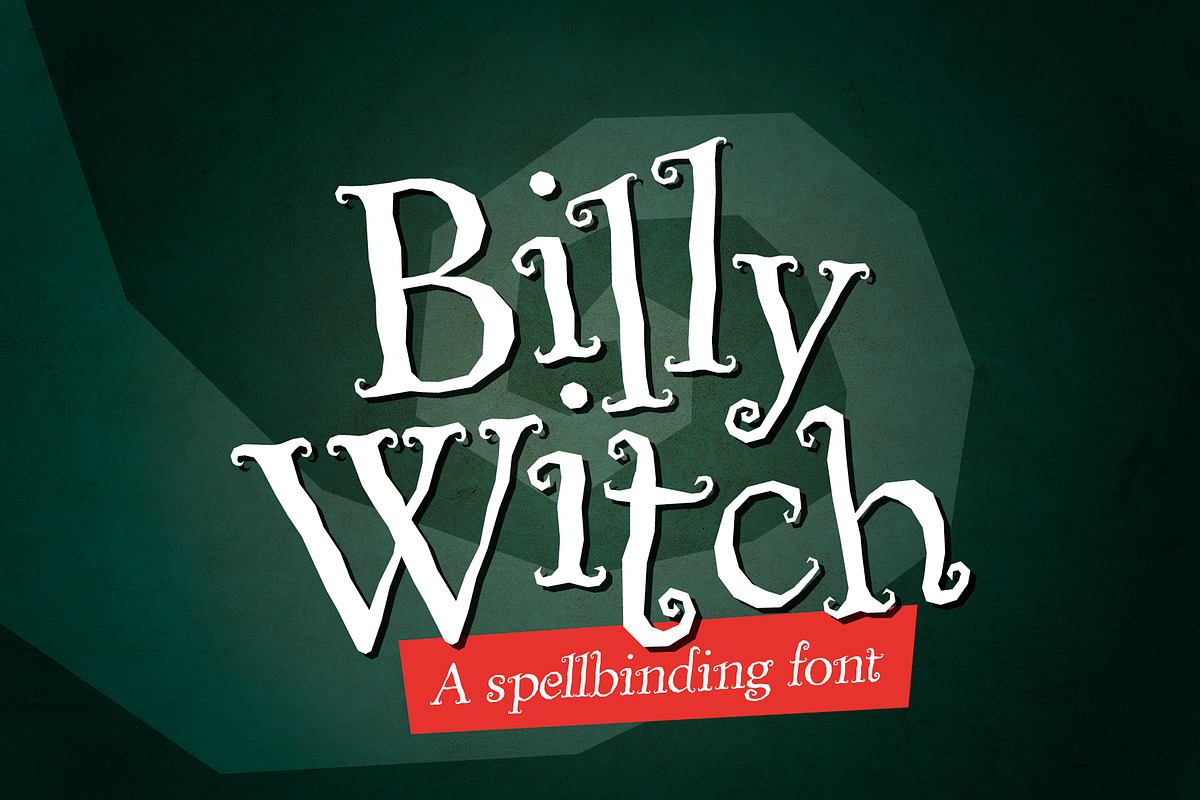
Introducing Billy Witch - Spellbinding Serif Font Free Download, a captivating typeface that blends whimsical curls with a touch of spookiness. Designed by Little Type Factory, this font features decorative swirly serifs that are both jagged and sharp, evoking a traditional yet distressed aesthetic. It's an ideal choice for Halloween-themed projects, magical designs, and any creative work that requires a mystical flair. The font includes both regular and italic styles, offering versatility for various applications. Download it for free to experiment with its enchanting features in personal projects. For commercial use, please ensure you purchase the appropriate license. Elevate your designs with the bewitching charm of Billy Witch - Spellbinding Serif Font Free Download